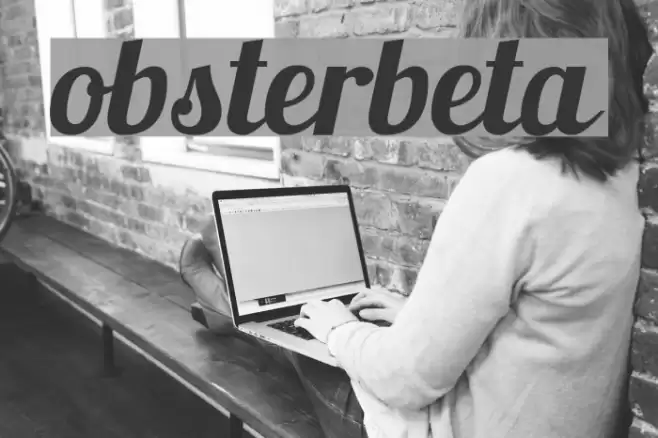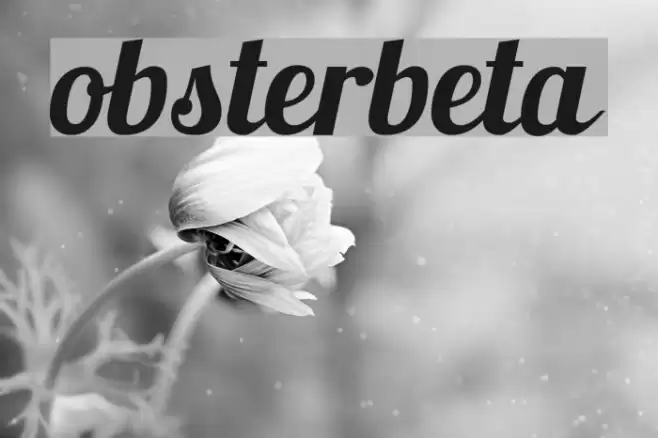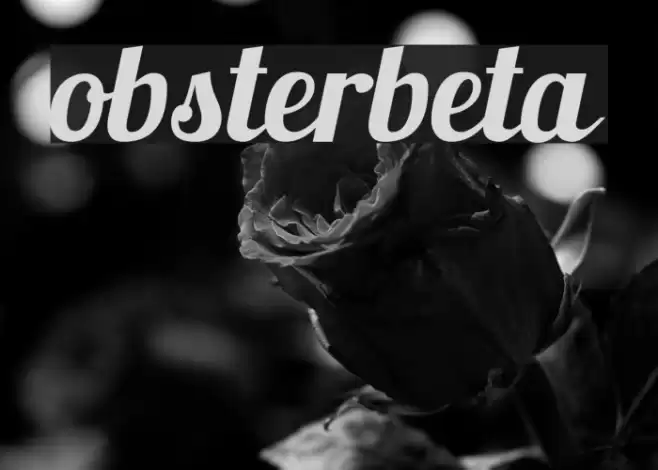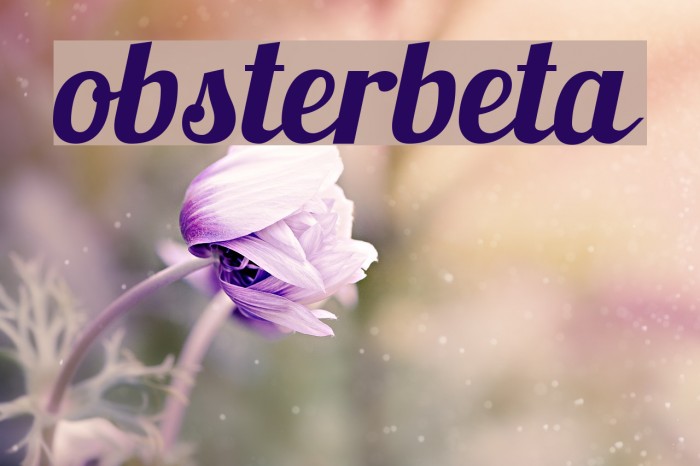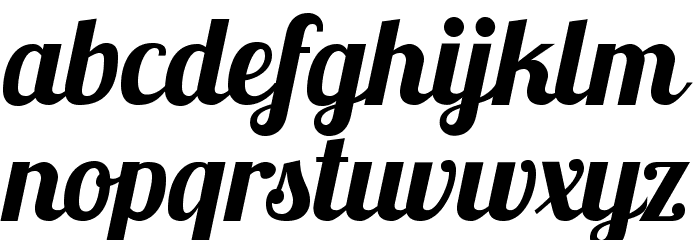
Lobsterbeta5 Font
Lobsterbeta5 Description
This font features a bold and flowing script style with a modern touch. The characters are connected in a cursive manner, giving it a smooth and elegant appearance. The strokes are thick and consistent, providing a strong visual impact. The font's design is both playful and sophisticated, making it suitable for a variety of creative applications. The lowercase letters have a distinctive slant, enhancing the dynamic and lively feel of the text. This font is perfect for projects that require a touch of elegance and flair.
A bold, flowing script font with a modern and elegant style from Uncategorized fonts.
- Proposed Projects: Ideal for branding, invitations, greeting cards, and logo design.
- Use Case: Logos, Invitations, Branding